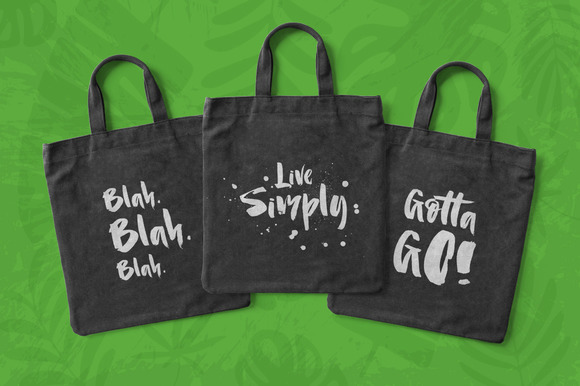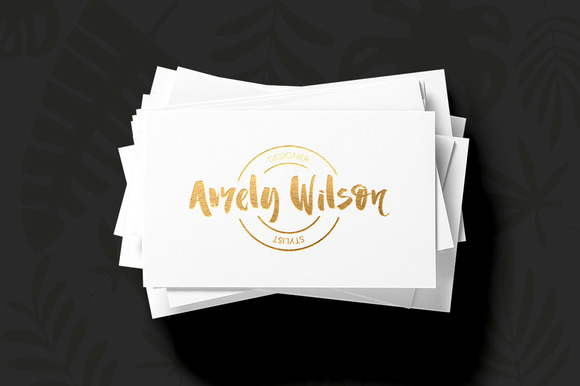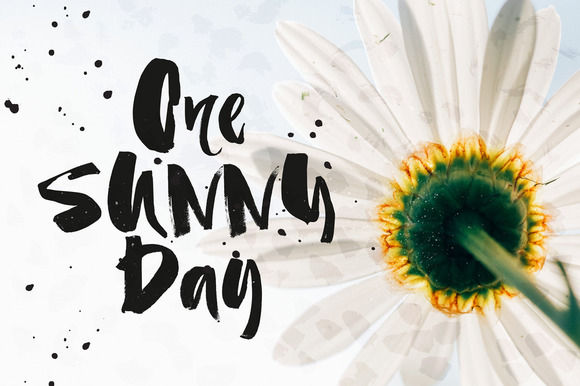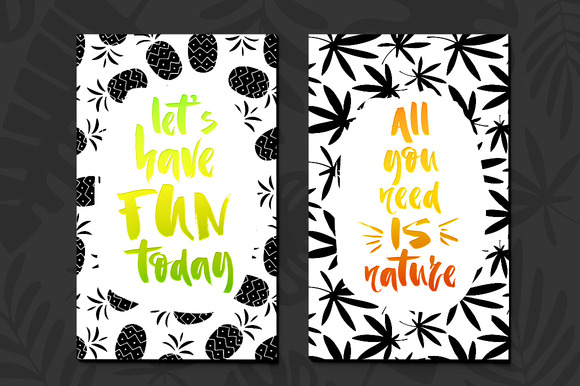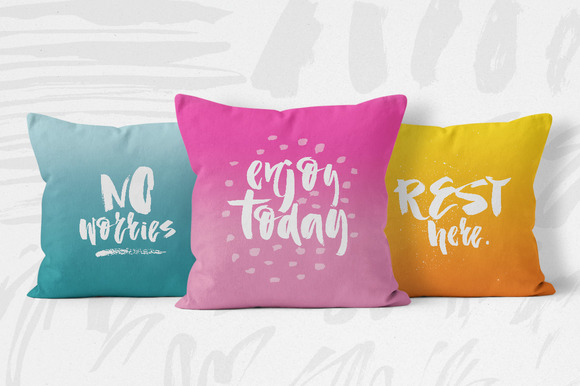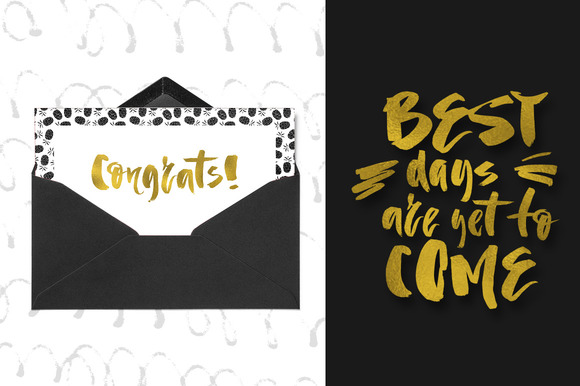
Introduction to Haiti Font
Have you ever found yourself scribbling away in a sketchbook, searching for the perfect font to bring your creative project to life? I’m sure many designers can relate to the frustration of scrolling through font options, only to settle for something that just doesn’t quite fit the vibe you’re going for. That’s where the Haiti Font comes in – a game-changing, high-quality typeface that’s about to become your new go-to design resource.
About the Haiti Font
The Haiti Font is a stunning, easy-going brush font that boasts an organic texture reminiscent of handwritten notes on paper. With its authentic, natural look, it’s the perfect choice for designers looking to add a touch of warmth and personality to their projects. The Haiti Font has been carefully drawn with a brush and ink on paper, giving it a unique, handcrafted feel that’s hard to replicate with digital tools.
Why You’ll Love the Haiti Font
- High-quality, hand-drawn design perfect for creative projects
- Transparent background, allowing for seamless integration into various design elements
- Includes a range of 20 unique characters, including uppercase and lowercase letters, numbers, and punctuation
- Designed with a bold, playful style, ideal for adding a touch of personality to your designs
Honest Review: Haiti Font
I recently had the chance to work with the Haiti Font, a free download available for designers. Overall, I was impressed with the high quality of this font, making it a valuable addition to any creative project.
What works well: ✨ The Haiti Font features a unique and stylish design, perfect for adding a touch of elegance to any text-based element. The font is available in a transparent background, which makes it easy to customize and integrate into various design settings.
- High-quality design suitable for creative projects
- Available in a transparent background for easy customization
However, there are some limitations: ⚠️ The font is not as extensive as some other font families, with a relatively small character set. Additionally, the font may not be suitable for all design applications, particularly those requiring a wide range of font styles.
Overall, I was pleased with the Haiti Font, and it has become a valuable addition to my design library. While it may have some limitations, its unique design and high-quality construction make it a great choice for designers looking for a free and versatile font option.
Tips for Getting the Most Out of Haiti Font
To get the most out of the Haiti Font, use it for projects that require a high level of creativity and sophistication, such as branding, marketing materials, and artwork. You can also use it to create unique and eye-catching graphics, logos, and typography.
The Haiti Font is commonly used in various design projects, including branding, marketing materials, artwork, and graphics. Its high-quality design and transparent background make it an ideal choice for designers who want to create stunning and professional-looking designs.